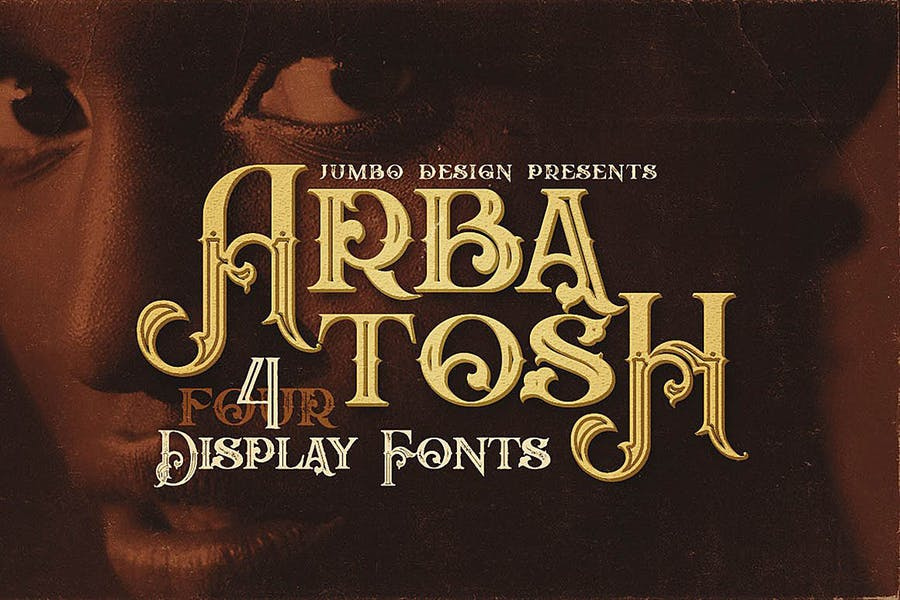
Arbatosh - Display Font
Arbatosh Display Font is perfect for artistic poster design, creative gallery exhibitions, avant-garde fashion branding, experimental music marketing, contemporary art installations, bold advertising campaigns, innovative product launches, and expressive visual communications.
What makes Arbatosh Display Font exciting is its artistic boldness that embodies experimental creativity and cutting-edge visual expression with unconventional character and striking presence. The font features dramatic letterforms with distinctive angles and expressive proportions that evoke abstract sculptures, modern art movements, and the fearless innovation of contemporary artistic vision. Its distinctive experimental styling and artistic appeal communicate creativity, originality, and visual impact, making every message feel crafted by artistic hands and touched by the revolutionary spirit of modern design expression.
The Arbatosh Display Font family includes regular weight with uppercase and lowercase letters, numerals, punctuation marks, and special characters. Premium versions often feature artistic alternates and experimental elements that enhance the bold, creative aesthetic perfect for display and artistic applications.
This striking experimental typeface brings instant artistic credibility and visual impact to any creative project. Arbatosh Display Font Free Download delivers exceptional results for artists and creative organizations seeking to communicate artistic innovation, visual boldness, and experimental design thinking to creative audiences and art enthusiasts.
The expressive character of Arbatosh Display Font makes it particularly valuable for art galleries, creative agencies, and experimental design studios. Its excellent impact ensures artistic messaging and creative communications capture attention while maintaining the distinctive avant-garde aesthetic that appeals to audiences seeking artistic innovation and experimental visual expression.
Creative industry professionals appreciate how Arbatosh Display Font effortlessly conveys artistic authenticity and experimental boldness. The font's dramatic proportions and expressive details create compelling artistic materials that establish connections with audiences who value creative innovation, artistic expression, and the bold experimentation of contemporary design culture.
The versatile artistry of this typeface extends to fashion design, creative education, and artistic events where experimental authenticity enhances creative credibility. Arbatosh Display Font Free Download provides creative professionals with an essential tool for developing memorable, artistically-driven designs that resonate with audiences who embrace experimental creativity, artistic innovation, and the bold expression of cutting-edge visual communication in today's art-forward creative landscape.